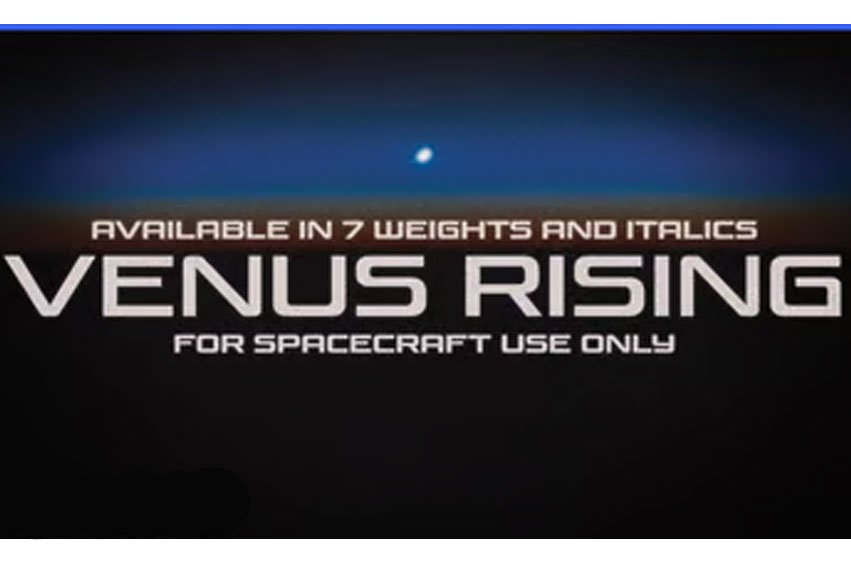
Venus Rising Font
Venus Rising Font is a wide, square display typeface built for the precision and drama of a spacefaring future. Its geometry is deliberate—clean horizontal cuts, modular symmetry, and measured curves—giving it the authority of spacecraft hull markings and the clarity of mission control readouts.
With seven weights plus matching obliques, Venus Rising spans a spectrum from the airy elegance of Thin to the commanding impact of Extra Bold. Use the lighter weights for sleek interface elements or futuristic schematics; bring out the heavier styles for high-visibility headlines, branding, and environmental graphics. The subtle oblique slant adds motion without sacrificing stability, perfect for projects that hint at speed and innovation.
Venus Rising has proven its adaptability across decades of design, equally at home in aerospace branding, techno album covers, gaming UIs, or exhibition signage. Its extensive language support—Latin-based scripts, Greek, and Cyrillic—ensures your message travels across borders and into new frontiers.
Engineered for the boldest ideas and the clearest communication, Venus Rising delivers a distinctly modern voice with roots in classic sci-fi typography. When your work calls for precision, presence, and a touch of the beyond, this is your launch platform.